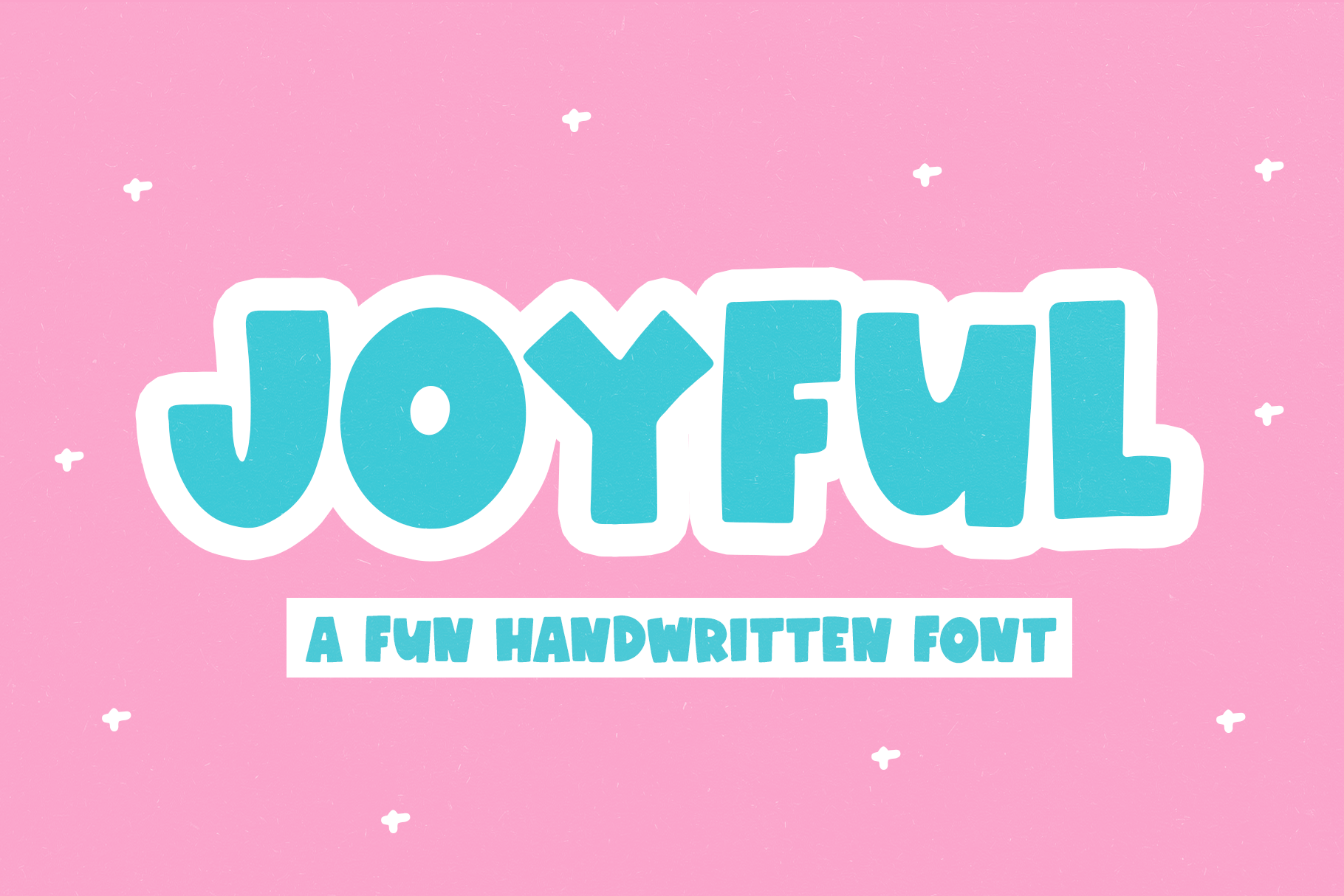
Joyful | Fun Handwritten Font
Joyful is a fun handwritten font.
This is an all caps font.
Joyful is perfect for branding, logos, signs, kid's shirts, svg designs, home decor, social media and more!